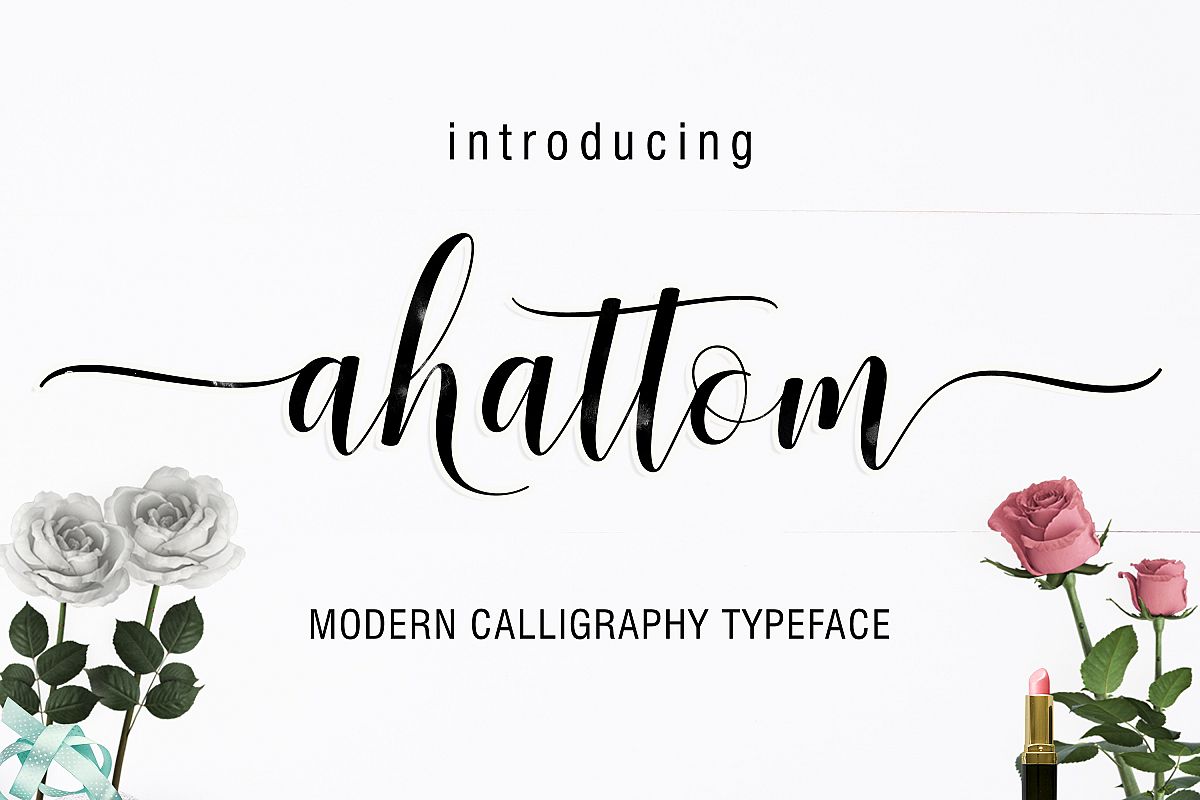
Ahattom Script
Ahattom
Ahattom is modern script font, every single letters have been carefully crafted to make your text looks beautiful. With modern script style this font will perfect for many different project, e.g : quotes, blog header, poster, wedding, branding, logo, fashion, apparel, letter, invitation, stationery, etc.